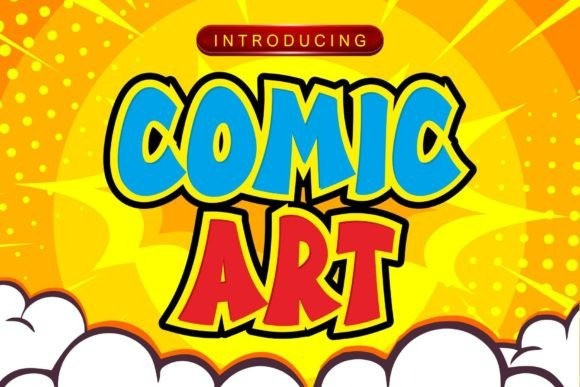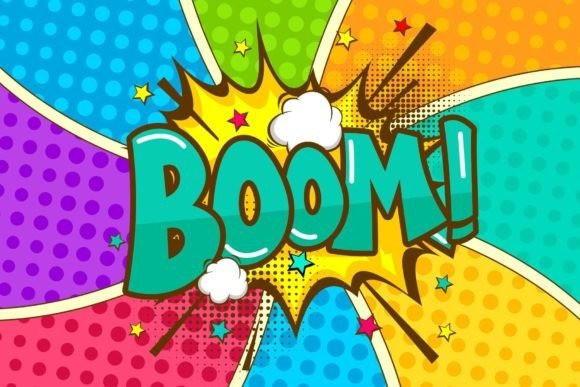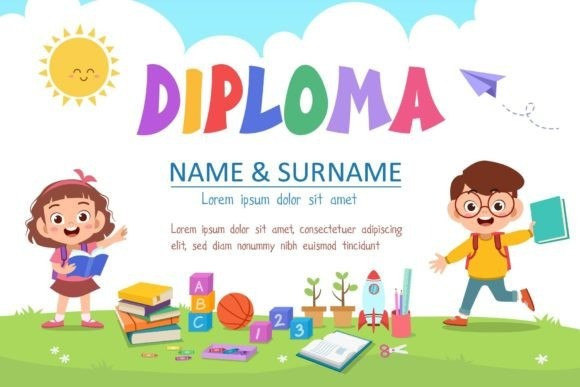
Comic Art Font
Comic Art is a cool and fun display font. It is the perfect font for titles or words needing a more dramatic emphasis. Whatever the topic, this font will be a wonderful asset to your font library, as it has the potential to enhance any creation. And free special bonus SVG, EPS, and PNG files.